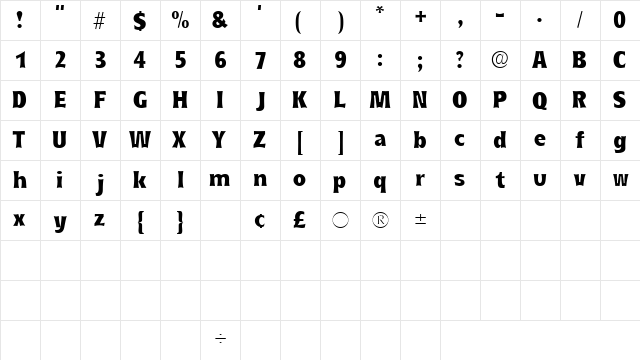
EleutheriaSSK Regular Font Preview
EleutheriaSSK Regular
EleutheriaSSK Regular Font Details
Design Context for EleutheriaSSK Typeface
EleutheriaSSK takes a measured approach to typography — its balanced proportions and neutral character make it a reliable workhorse for both digital and print work.